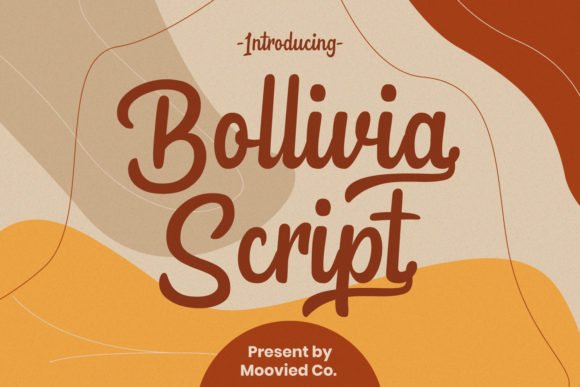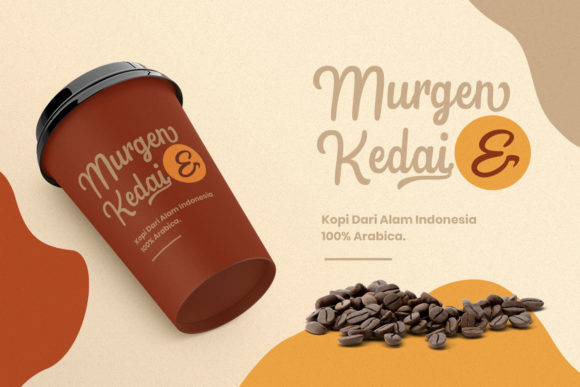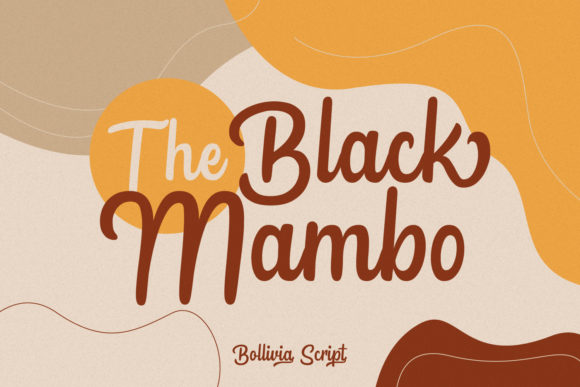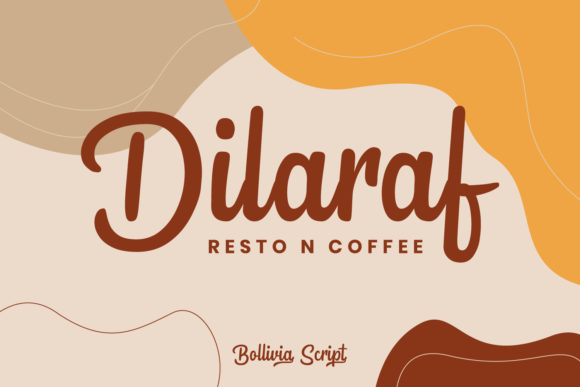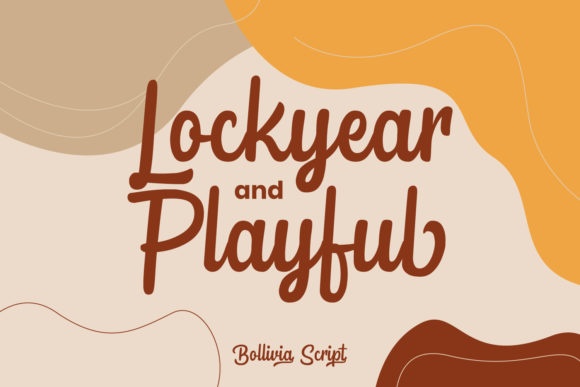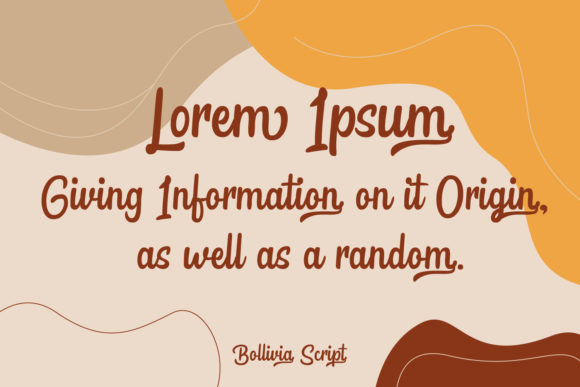
Discover the Timeless Charm of Bollivia Script Font
There’s nothing quite like the feeling of pen scratching against paper, as a writer’s thoughts flow onto the page in elegant script. For designers and writers, the art of calligraphy has long been a source of inspiration and creativity. Whether you’re crafting a wedding invitation, designing a logo, or simply adding a touch of personality to a social media post, the right font can make all the difference.
Enter Bollivia Script Font, a stunning handwritten font that captures the essence of classic calligraphy. With its varying baseline, smooth lines, gorgeous glyphs, and stunning alternates, this font is the perfect addition to any designer’s toolkit. Whether you’re a seasoned pro or just starting out, Bollivia Script Font offers a level of sophistication and elegance that’s hard to find in more modern fonts.
Bolivia Script Font Key Features
- Unique Characteristics: Handwritten, cursive script font with a mix of elegant and rustic elements, perfect for creative and artistic applications
- Kerning and Ligatures: Includes advanced kerning and ligature pairs for smooth and even text rendering
Bolivia Script Font Review
I recently had the chance to work with Bolivia Script Font, and I must say it’s a beautiful addition to any design project. ✨ The font’s elegant, handwritten feel immediately catches the eye and adds a touch of sophistication to any text. ✨ The font is highly customizable, allowing you to adjust the font size, color, and even add your own flourishes to make it truly unique.
- Elegant, handwritten feel
- Works well in a variety of design projects
However, I did encounter a few limitations with the font. ⚠️ One of the main issues I had was with the font’s scalability. While it looks great at larger sizes, it can become a bit blurry and difficult to read at smaller sizes. ⚠️ Additionally, the font can be quite heavy on the page, making it difficult to balance with other design elements.
Overall, I would say that Bolivia Script Font is a solid choice for designers looking to add a touch of elegance to their work. While it may have some limitations, its beauty and customizability make it a worthwhile addition to any design project.
To get the most out of the Bolivia Script font, try the following:
1. Use it in conjunction with other fonts to create a unique and stylish look.
2. Experiment with different font sizes and styles to add emphasis to your text.
3. Use the font in a variety of design contexts, such as invitations, posters, and business cards.